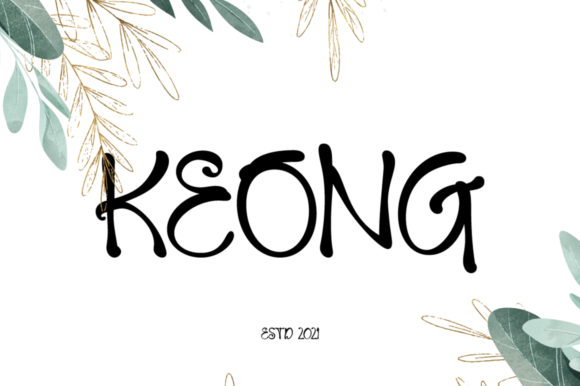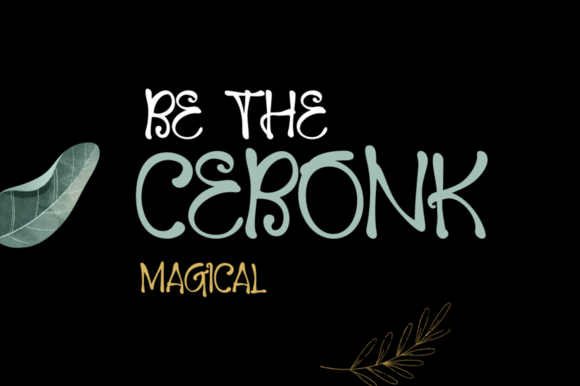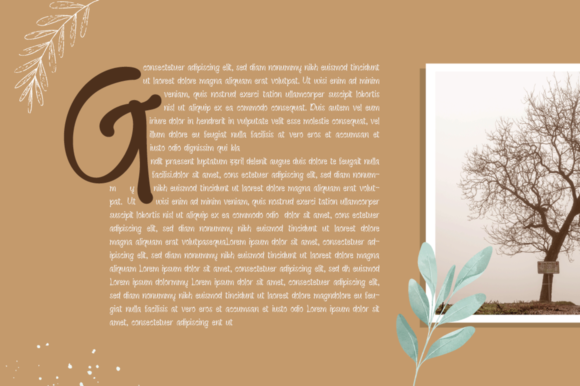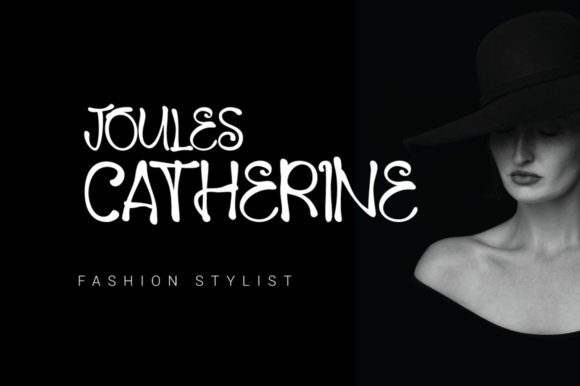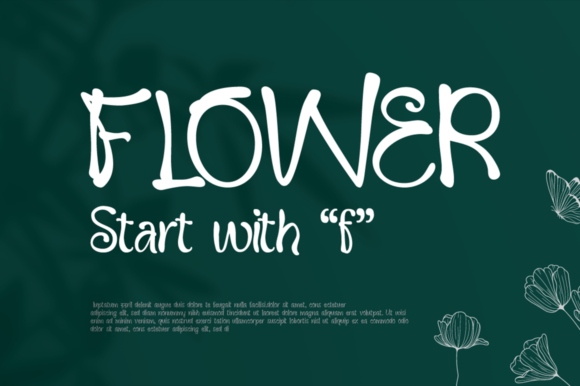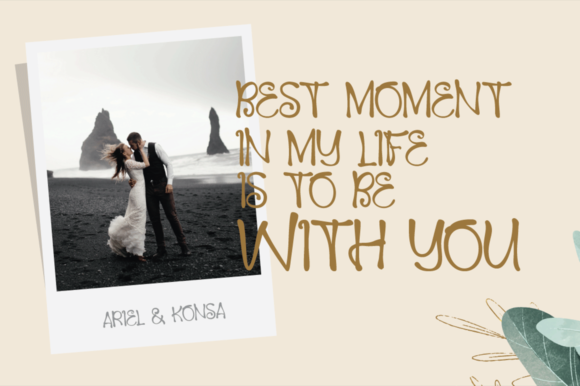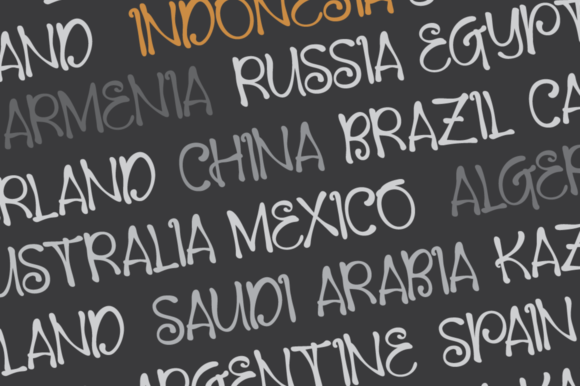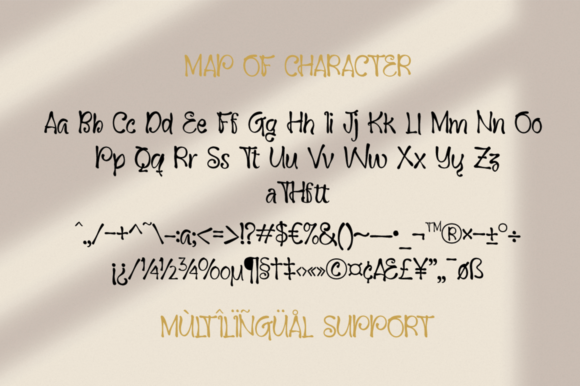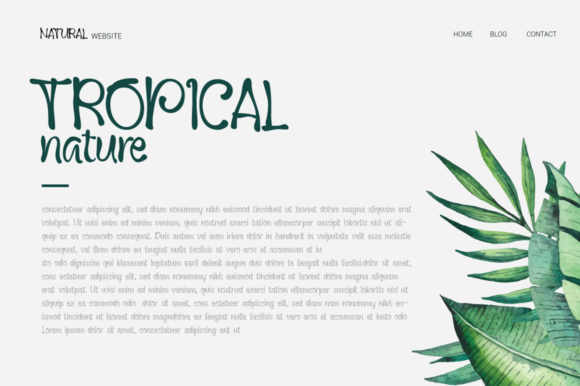
About Keong Font
Keong is a cool, whimsical and quirky handwritten font. No matter the topic, this font will be an incredibly asset to your fonts’ library, as it has the potential to elevate any creation.